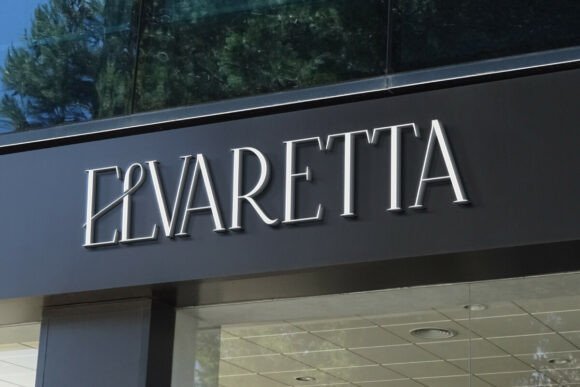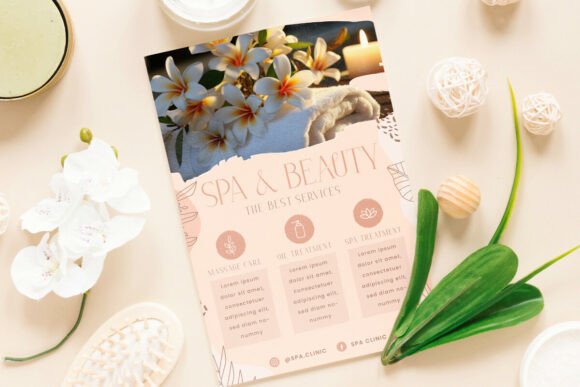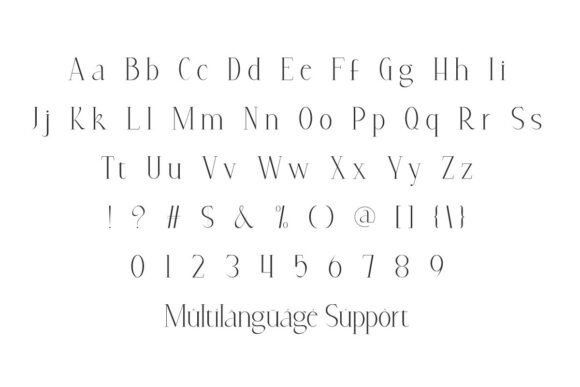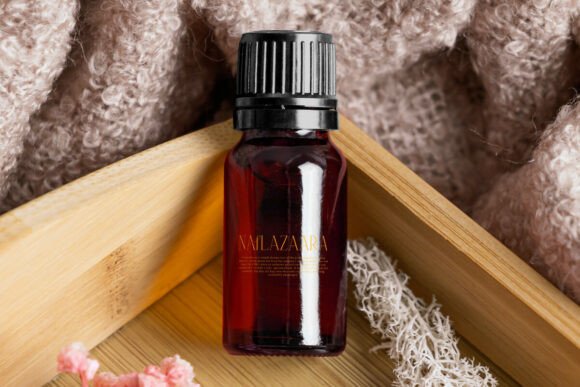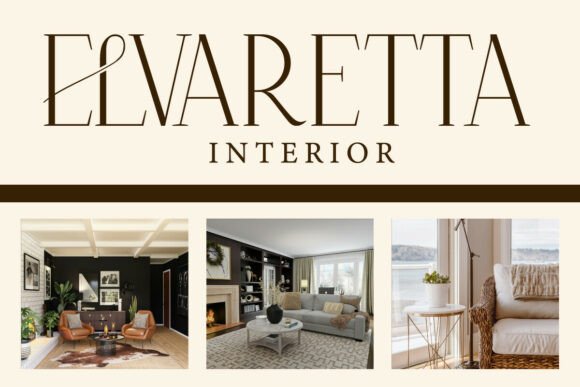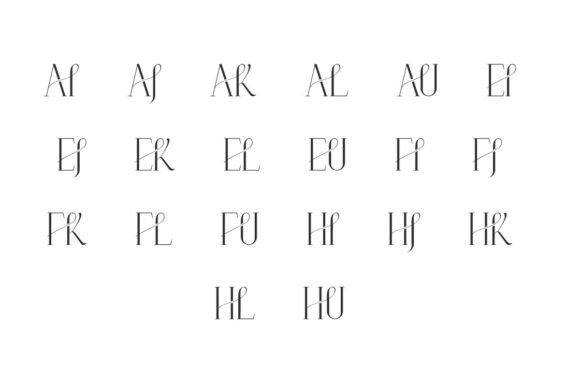
Introducing Chloe Fidelia Font: Elevate Your Designs with Elegance and Versatility
In the world of typography, finding the perfect font that balances personality and professionalism can be a daunting task. However, with Chloe Fidelia Font, designers and crafters can rejoice in discovering a versatile and stylish solution. This elegant serif display font is designed to convey luxury, sophistication, and refinement, making it an ideal choice for a wide range of projects.
Clean Lines, Stylish Curves, and Perfect Legibility
Chloe Fidelia Font boasts clean lines, stylish curves, and perfect legibility, making it a masterful blend of classic appeal and modern minimalism. The font’s design ensures that it can be used in various contexts, from traditional advertising and branding to modern digital platforms. Whether you’re working on a luxury brand campaign, a fashion blog, or an elegant wedding invitation, Chloe Fidelia Font is sure to impress.
A Complete Toolkit for Designers
One of the standout features of Chloe Fidelia Font is its versatility. The font comes in three distinct variations: Serif, Sans, and Display. This allows designers to choose the perfect style to suit their project’s needs.
- Serif: For classic appeal and traditional elegance, the Serif version of Chloe Fidelia Font is an excellent choice. It adds a touch of sophistication to any design, making it perfect for luxury brands, high-end products, and formal events.
- Sans: For modern minimalism and clean lines, the Sans version is ideal. It provides a fresh and contemporary feel, making it suitable for digital platforms, fashion brands, and innovative products.
- Display: For bold headlines and striking titles, the Display version of Chloe Fidelia Font is the perfect solution. Its elegant and refined design ensures that your message stands out, making it perfect for advertising, promotions, and attention-grabbing titles.
Elegance and Luxury in Every Detail
Chloe Fidelia Font is designed to exude a luxurious impression, making it perfect for projects that require an air of sophistication. Its clean look and elegant lines ensure that it can be used in a variety of contexts, including:
- Advertisements and branding
- Blogs and digital publications
- Invitations and event materials
- Labels and packaging design
- Layout design and magazine layouts
- Quotes and inspirational messages
- Signage and outdoor displays
- Stationery and office materials
- Template design and digital templates
- Websites and online platforms
Unique Ligature Characters for Added Flair
One of the unique features of Chloe Fidelia Font is its curved ribbon-like Ligature characters. These characters add a touch of elegance and sophistication to any design, making them perfect for:
- Accessories and jewelry brands
- Beauty products and cosmetics
- Clothing brands and fashion labels
- Event or wedding organizers
- Fashion and lifestyle blogs
- Florists and flower arrangements
- Furniture and home decor
- Real estate and property listings
- Spa and salon services
In conclusion, Chloe Fidelia Font is an exceptional addition to any designer’s toolkit. Its versatility, elegance, and sophistication make it an ideal choice for a wide range of projects. With its clean lines, stylish curves, and perfect legibility, Chloe Fidelia Font strikes a balance between personality and professionalism. Whether you’re working on a luxury brand campaign or a modern digital platform, this font is sure to elevate your designs and leave a lasting impression.